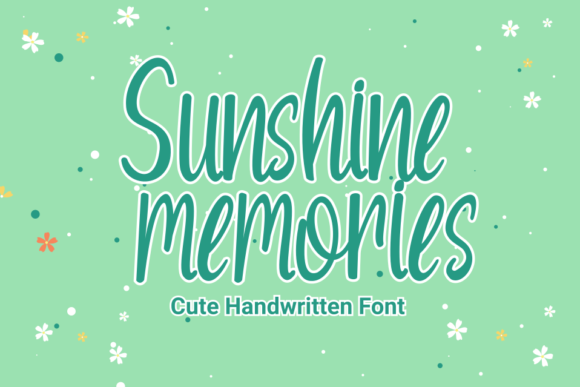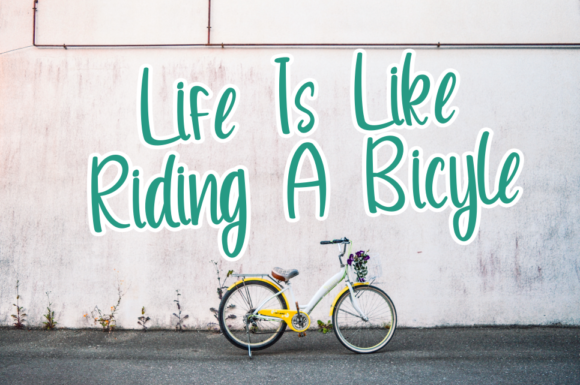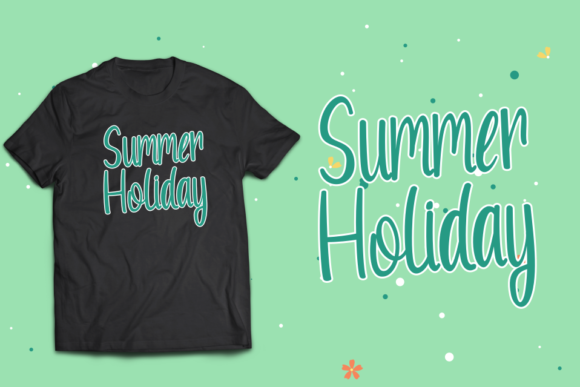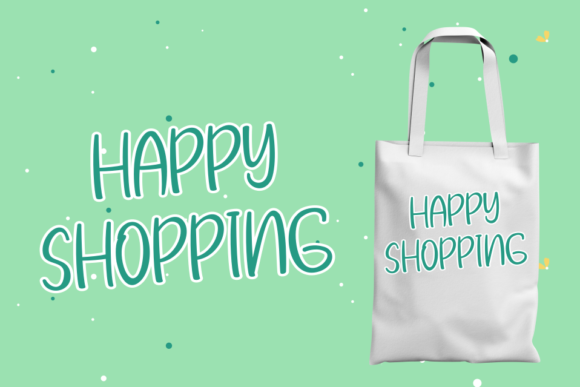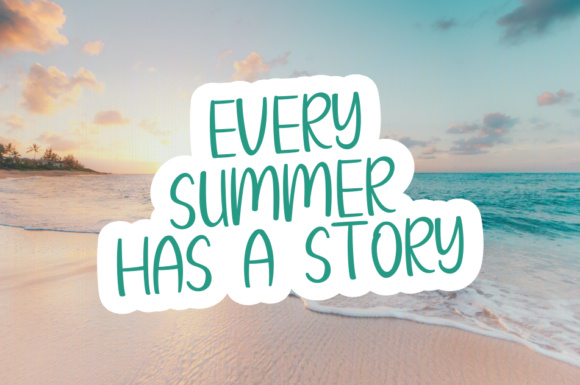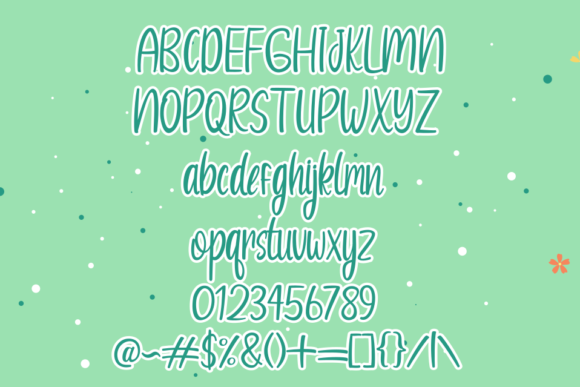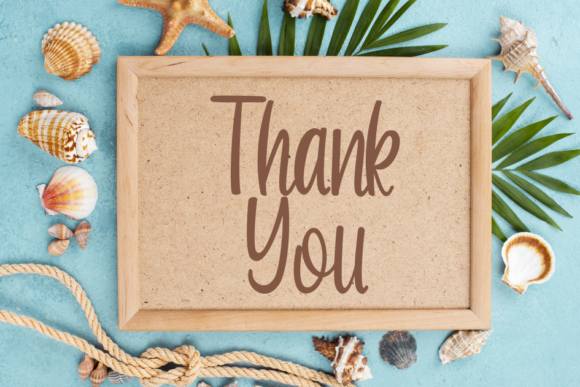
Sunshine Memories Font
About Sunshine Memories Font
Sunshine memories is a cute handwritten font. Its casual charm makes it appear wonderfully down-to-earth, readable and, ultimately, incredibly versatile. Fall in love with its authentic feel and use it to create gorgeous wedding invitations, beautiful stationary art, eye-catching social media posts, and cute greeting cards.